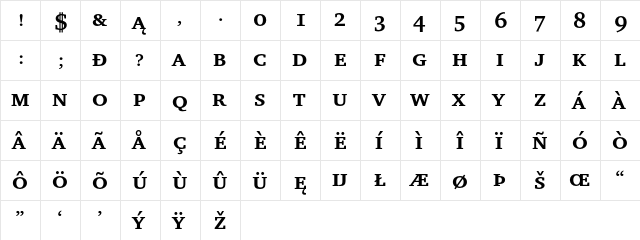
ITC Charter Bold SmallCap
Design Context for ITC Charter Typeface
ITC Charter offers clean, dependable letterforms without strong stylistic allegiance, making it a practical choice for designers who need flexibility. Its bold stroke weight gives it real presence on the page.
Pro Tip: Pair ITC Charter with a font of contrasting weight or personality to build a more expressive typographic hierarchy.